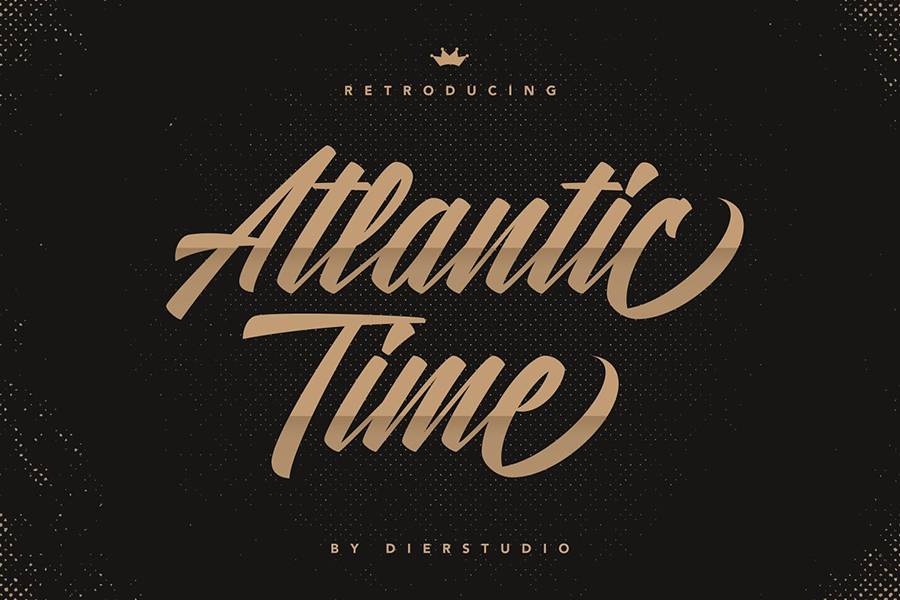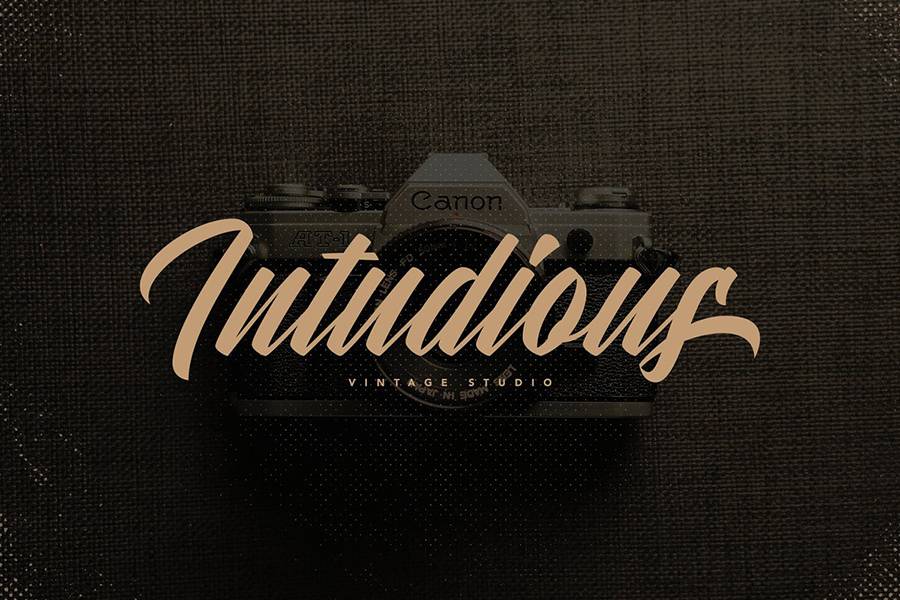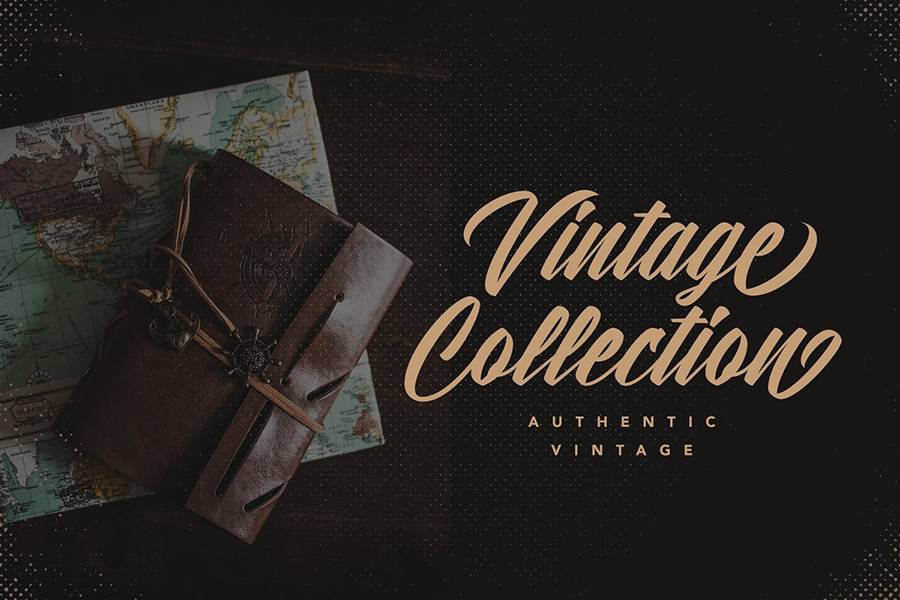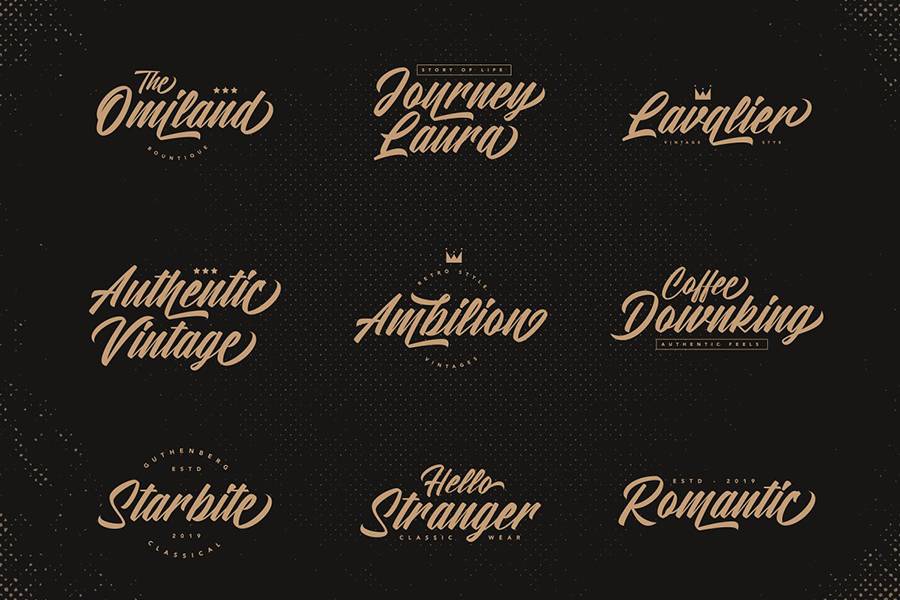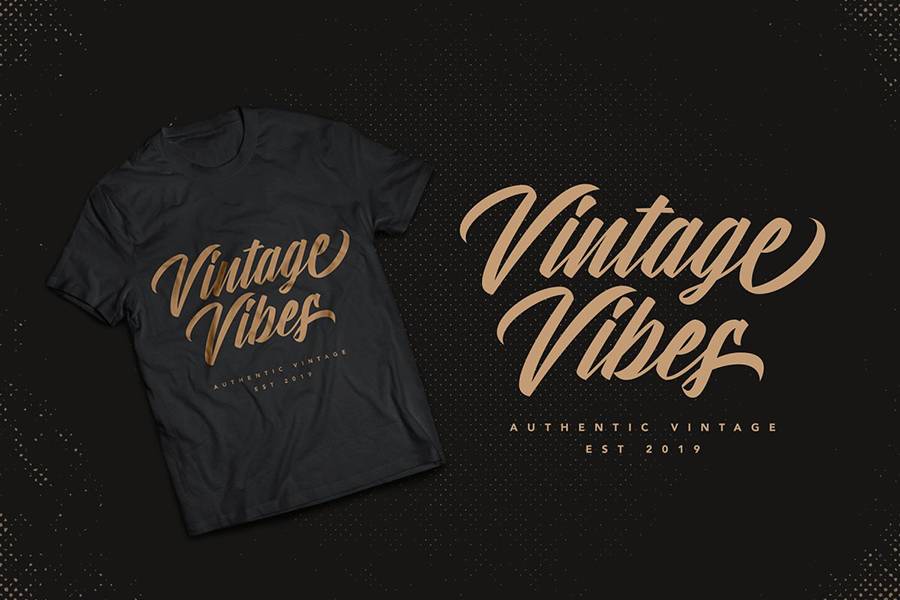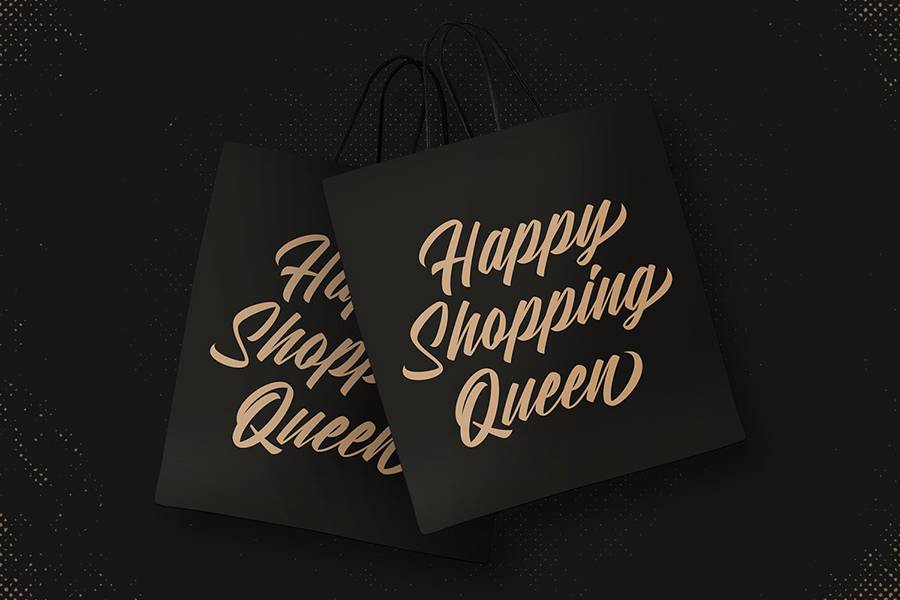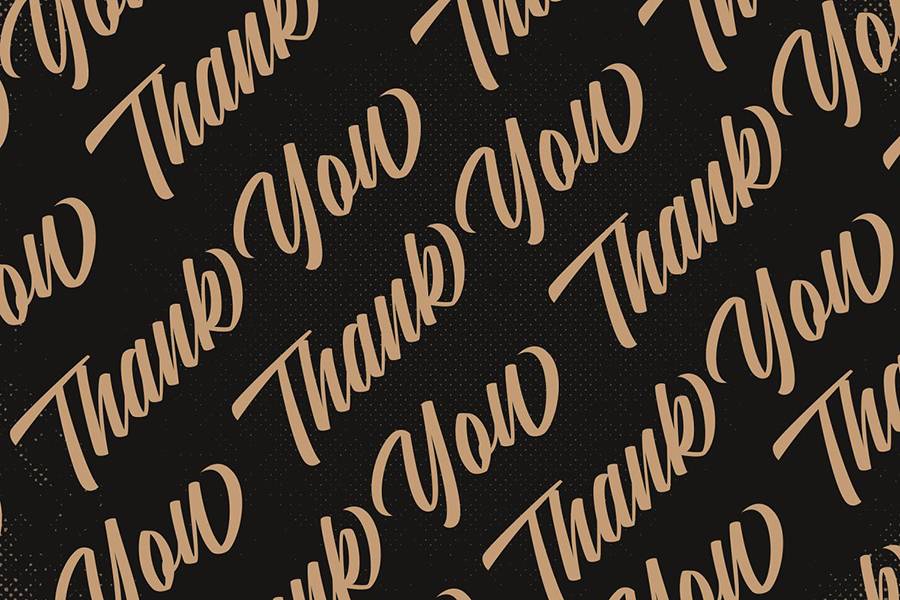
Atlantic Time Script Demo is an elegant, bold script font with a smooth, flowing style that captures a sense of modern sophistication. Its wide strokes and slight slant create a dynamic yet polished look, making it perfect for branding, headlines, and creative projects that want to convey confidence and style. Ideal for fashion, luxury, or lifestyle designs, this font adds a touch of personality while remaining highly readable.
Atlantic Time Script Demo Font
About Atlantic Time Script Demo Font
| Font family | Atlantic Time Script Demo Font |
| Designer | Ahmad Khaidir |